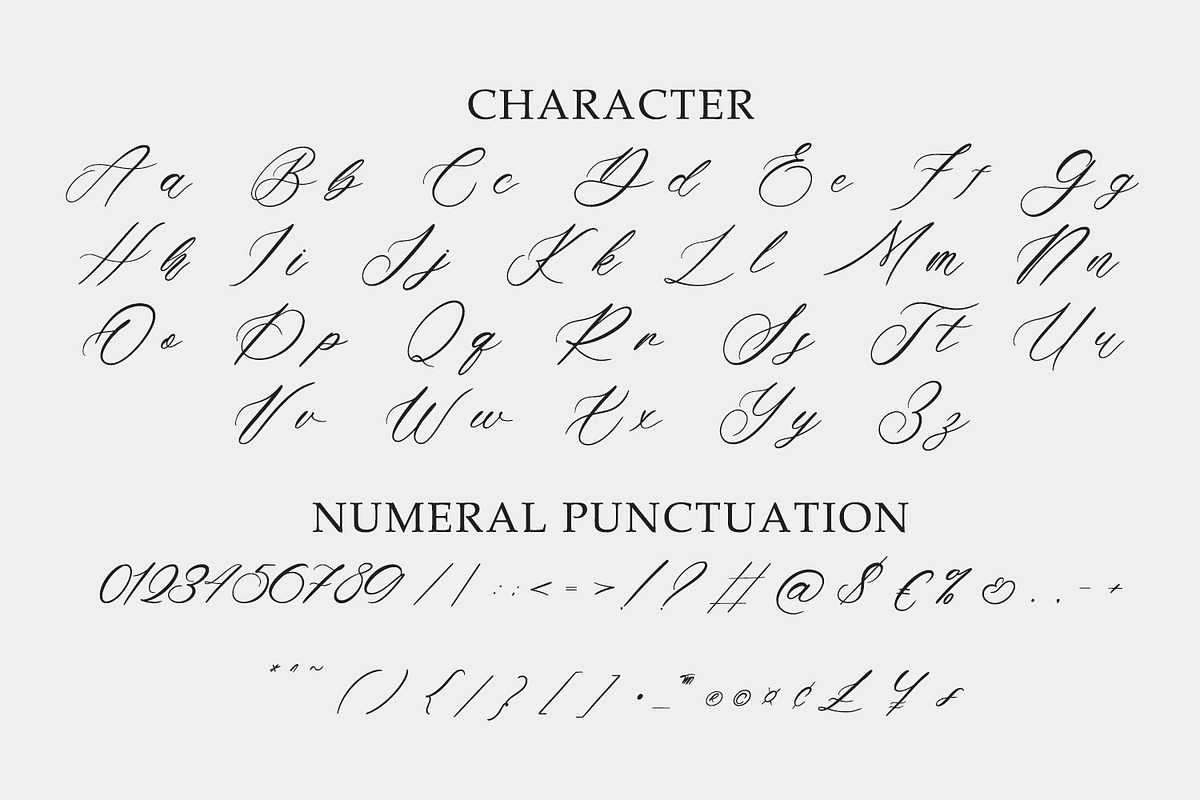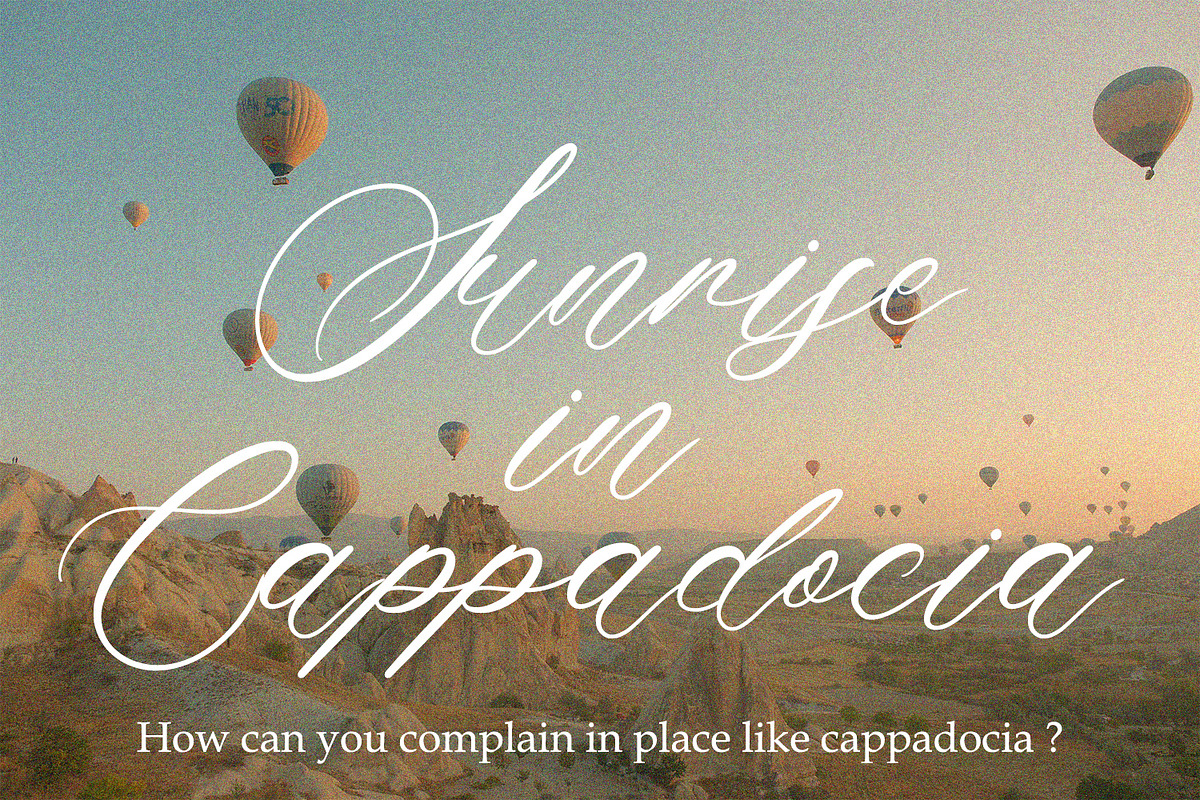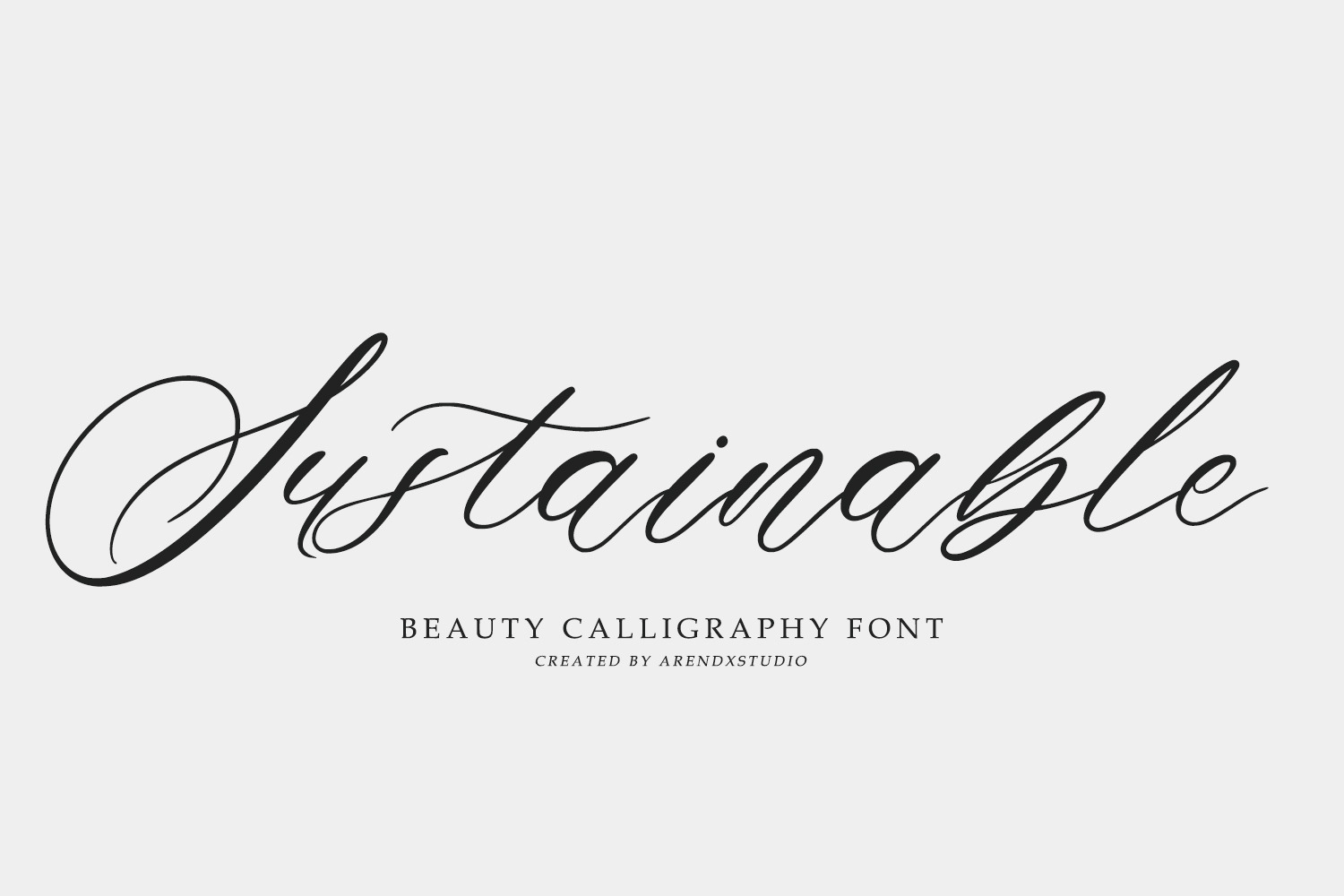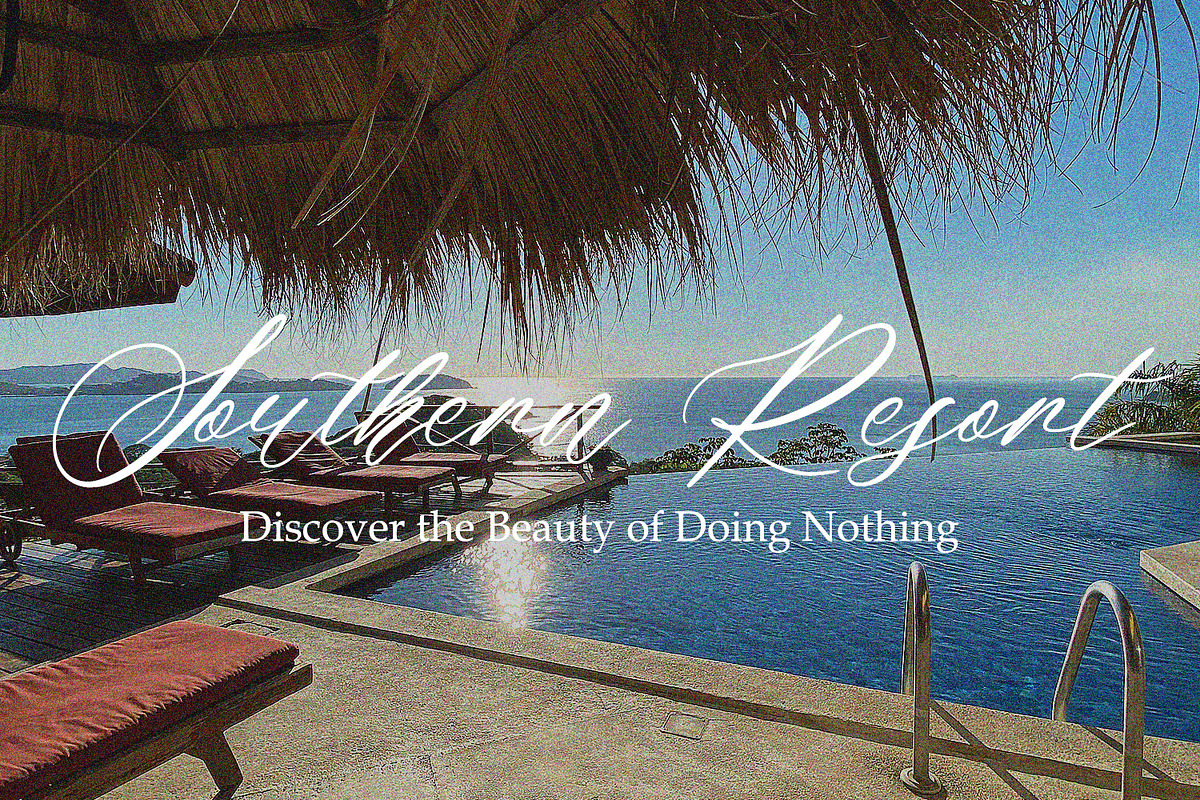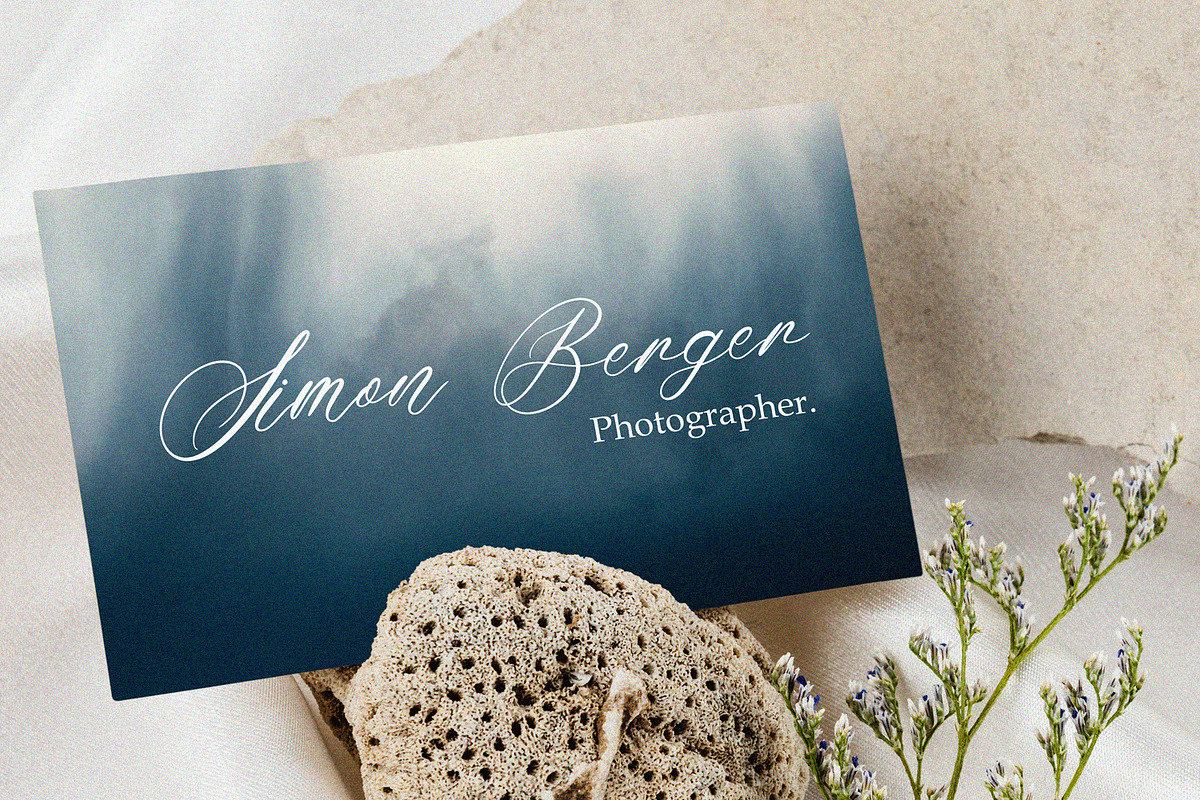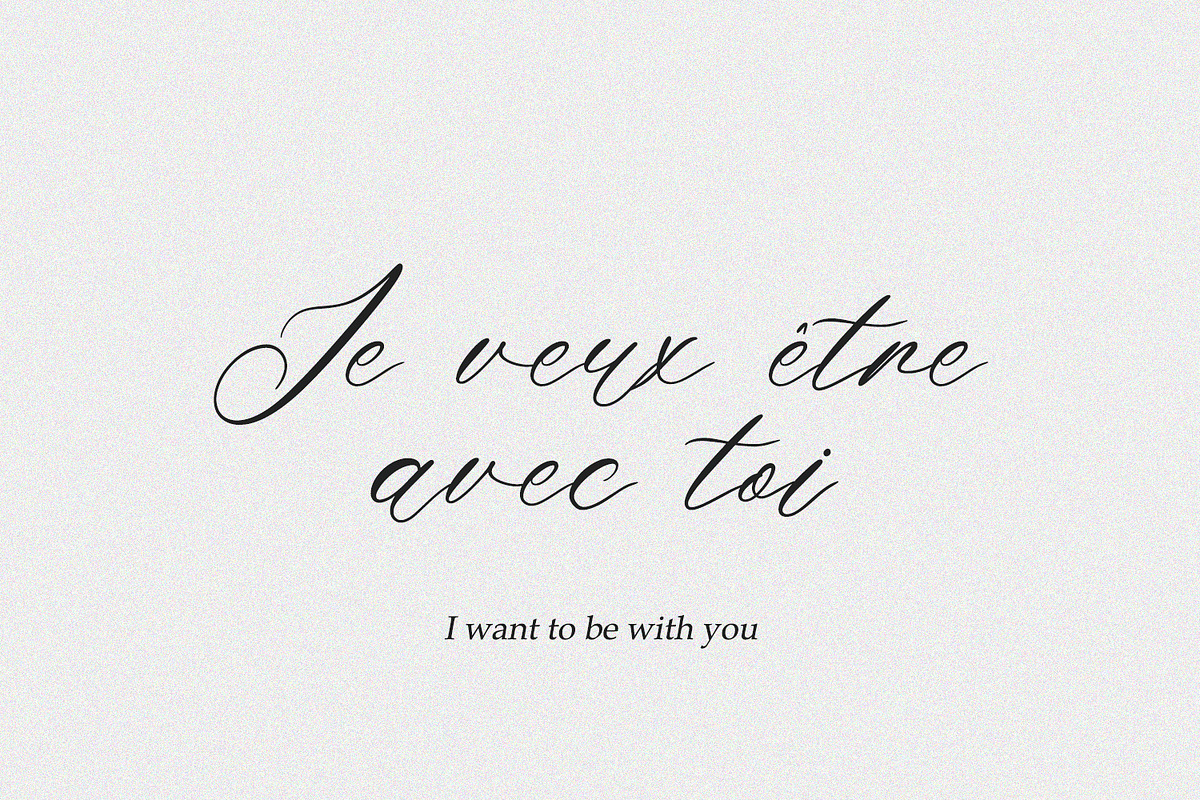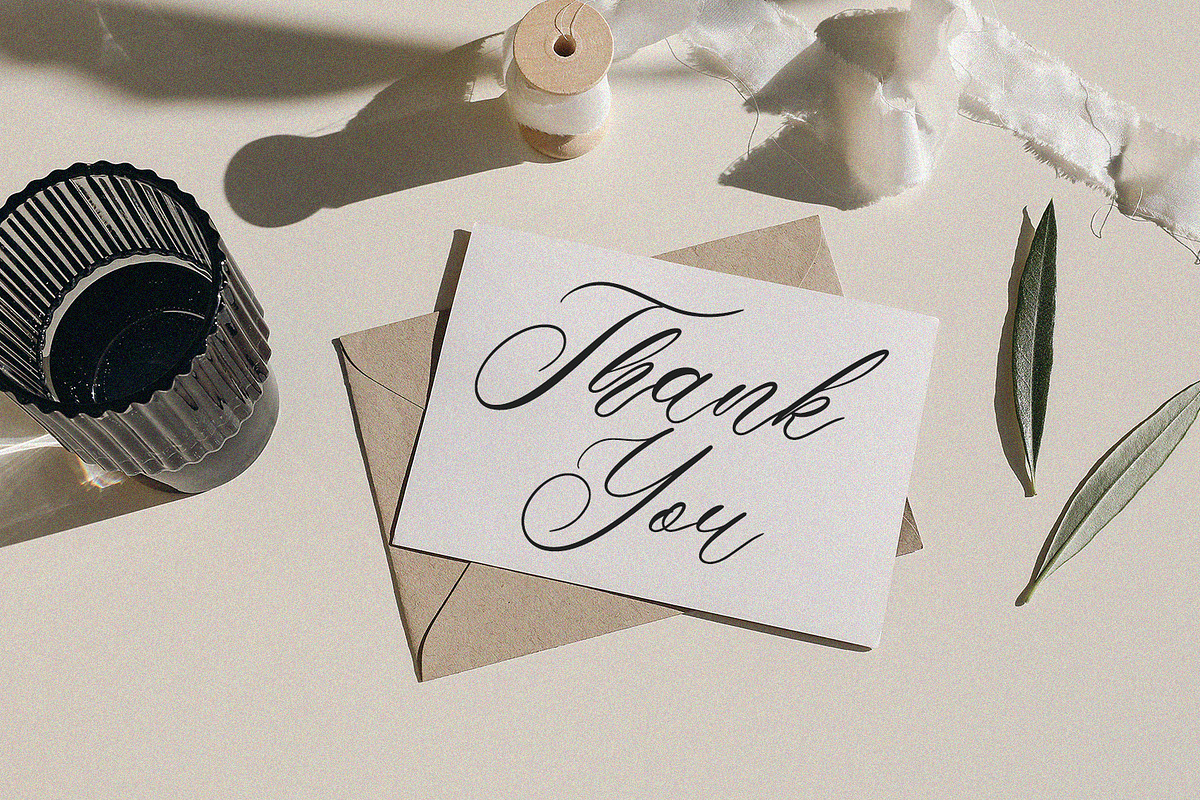
Sustainable Calligraphy Font
Sustainable Calligraphy Font is a font with distinctive handwritten characters perfect for branding projects, logos, wedding designs, media posts, advertisements, product packaging, product designs, labels, photography, watermarks, invitations, stationery, and any project who need handwritten dishes.